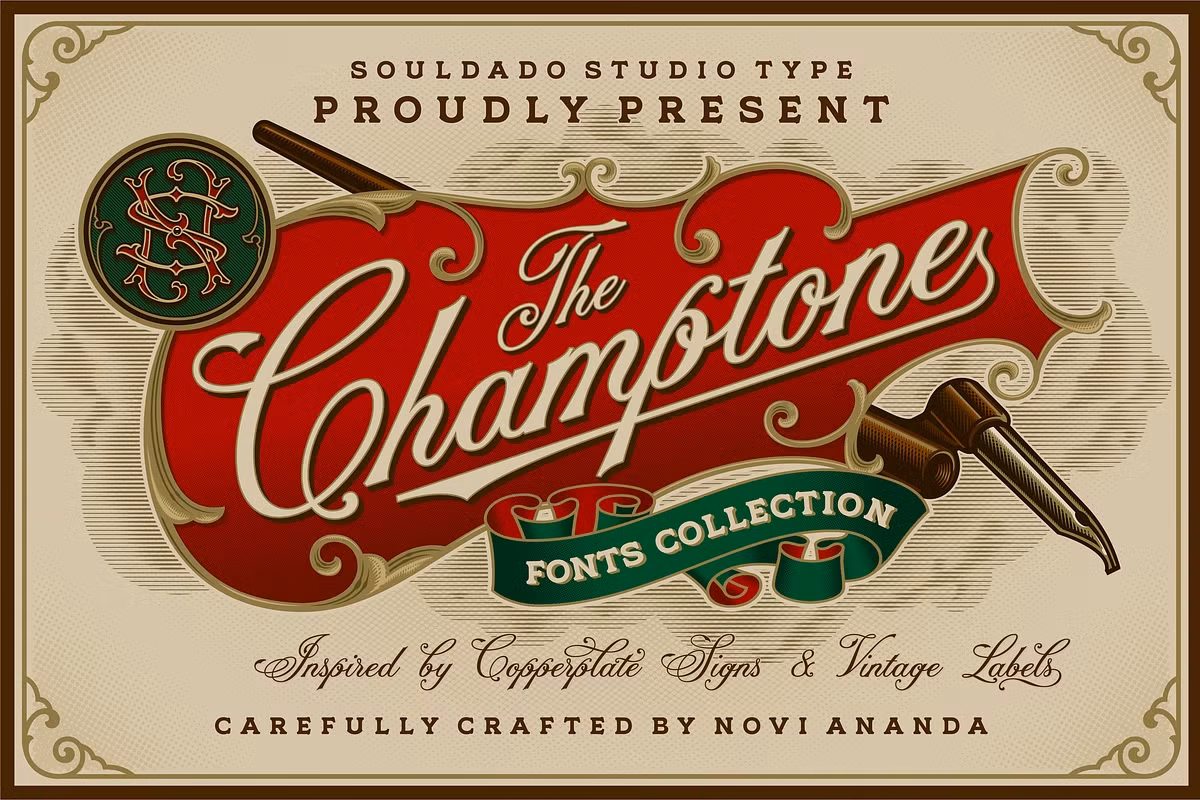
NS CHAMPTONE Fonts Collection Free Download is a versatile and elegant font collection designed to bring sophistication and style to any project. This collection features a range of serif, sans-serif, and display fonts, all with unique letterforms that blend modern aesthetics with classic charm. Ideal for branding, logos, editorial design, invitations, and more, the NS CHAMPTONE fonts are perfect for high-end projects that require both personality and clarity.
Each font in the collection offers different weights and styles, giving you the flexibility to create beautifully cohesive designs across various platforms and mediums. Whether you’re designing a logo, website, or print material, the NS CHAMPTONE fonts bring refined structure and a timeless appeal to your typography.